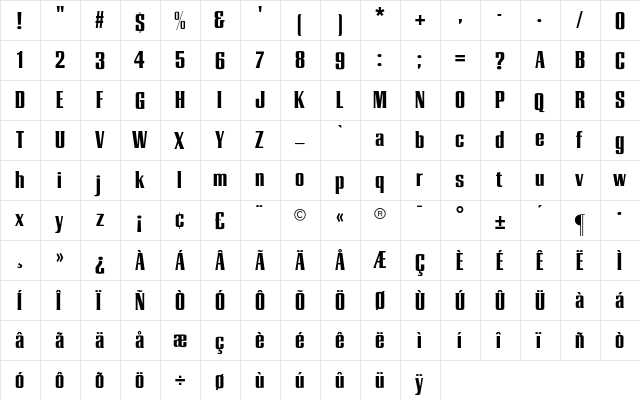
Europa CG Bold Regular
| Foundry | Agfa Corporation |
Design Context for Europa CG Bold Typeface
Europa CG Bold takes a measured approach to typography — its balanced proportions and neutral character make it a reliable workhorse for both digital and print work. Its bold stroke weight gives it real presence on the page.